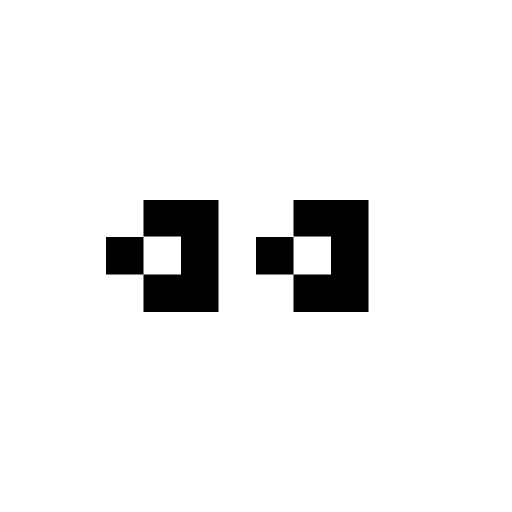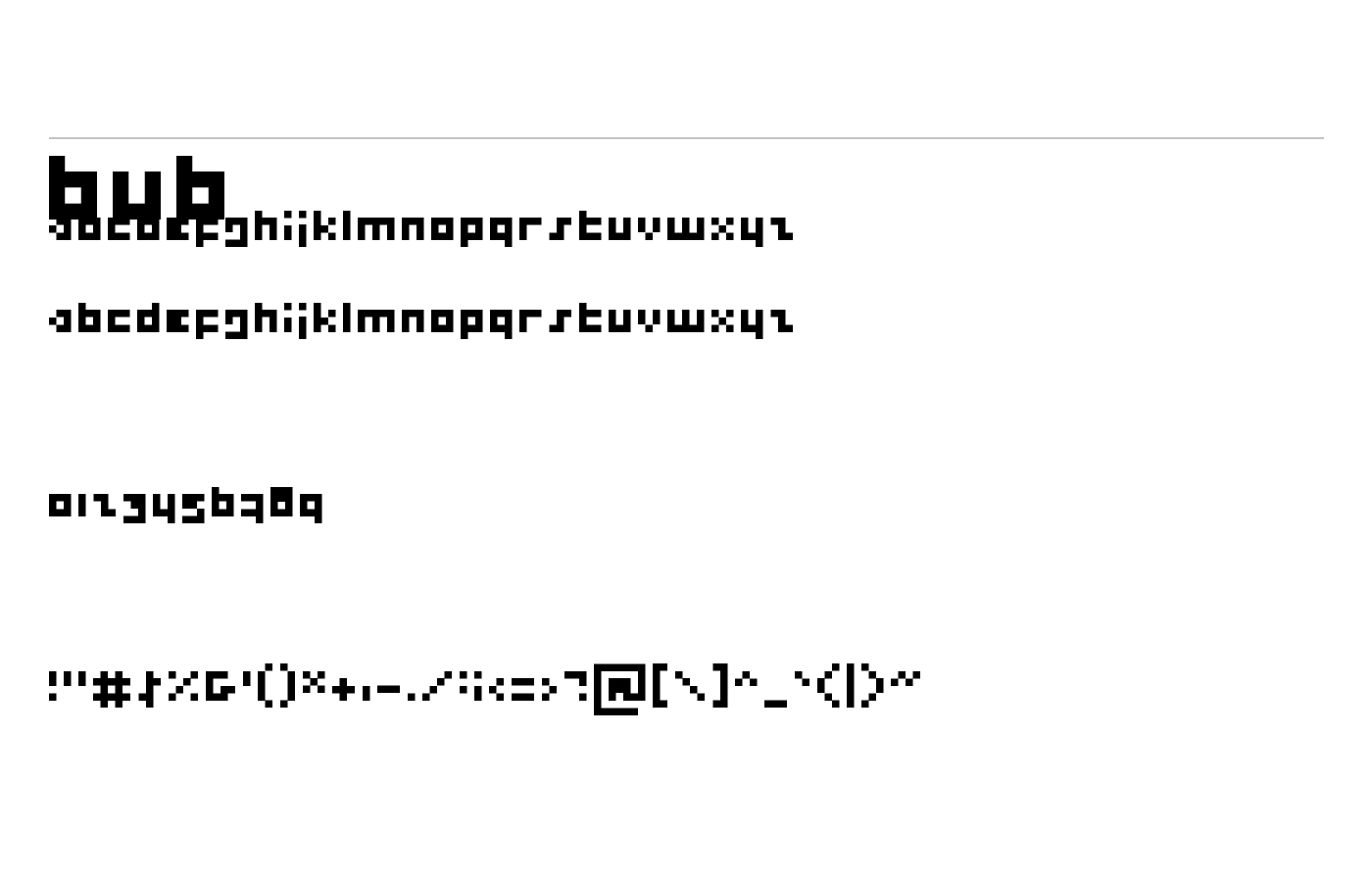
Bub Font is a pixel-inspired, monospace sans serif typeface characterized by its blocky, geometric shapes and consistent stroke weight. Its retro, digital aesthetic makes it perfect for use in video game design, tech-themed projects, and any creative work that needs a playful yet structured, nostalgic feel. This font shines in headlines, logos, or interface elements where clarity and a vintage computer vibe are desired.
Bub Font
About Bub Font